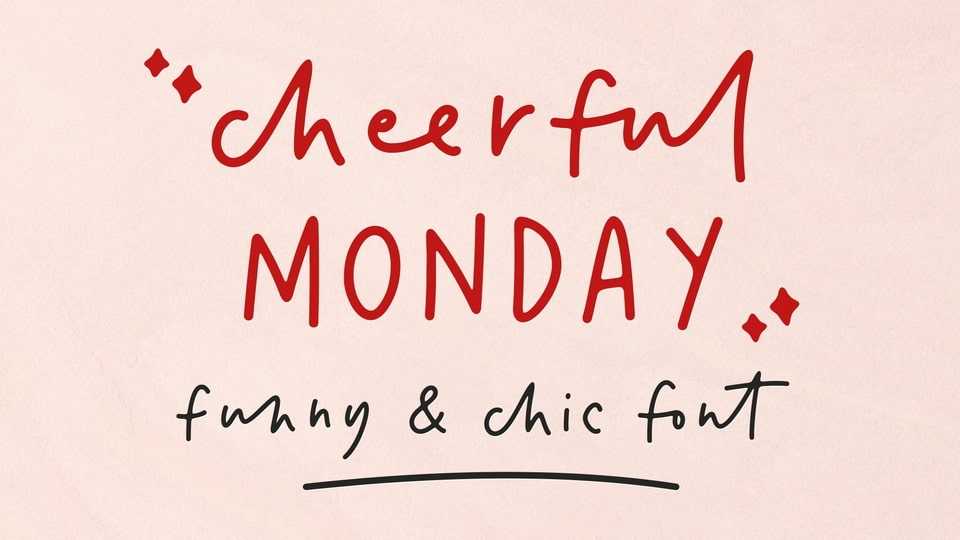
Download Cheerful Monday font, a handwritten typeface to enhance your hand-lettering. Cheerful Monday is perfect for quote designs, quaint logos, clever packaging, signboards, greeting cards, merchandise designs, trending Instagram photos and so much more.